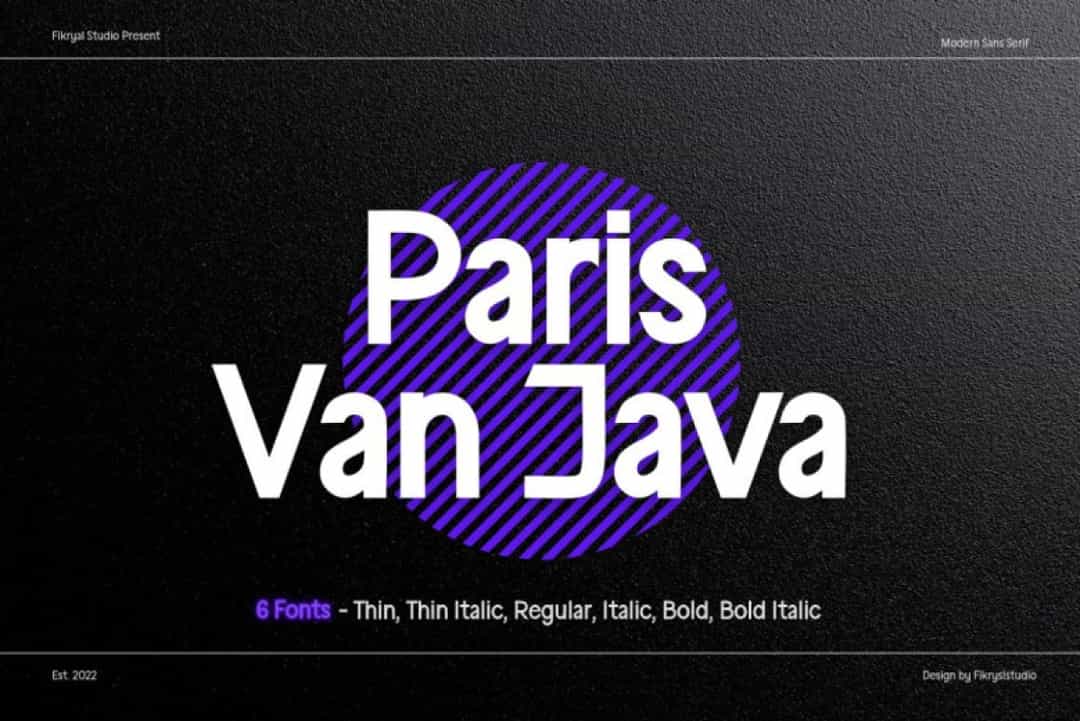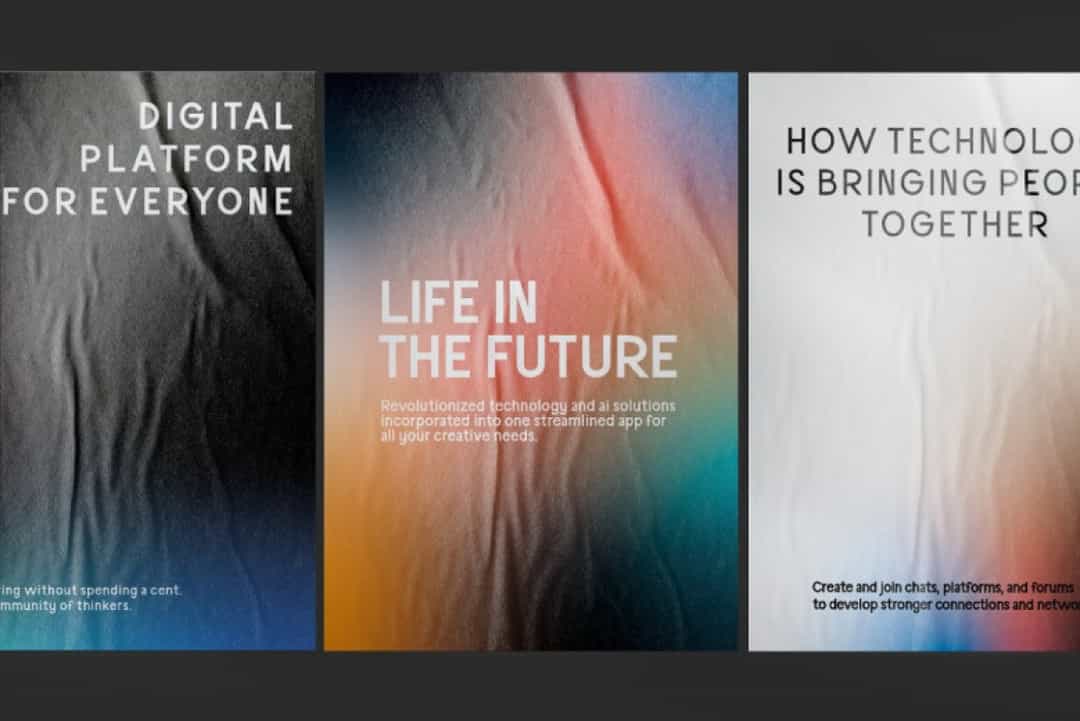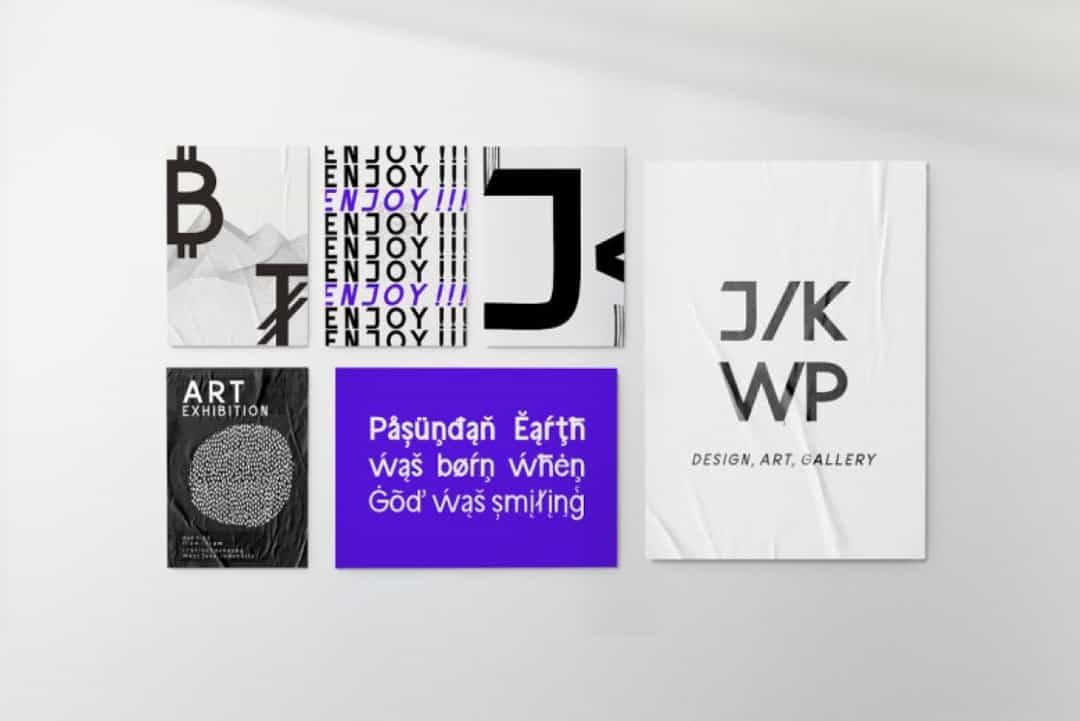
Paris Van Java Sans Serif Font Family is now available, providing six styles including Thin, Thin Italic Regular Italic Bold Bold Italic for various design aspects. These fonts provide versatile use options.